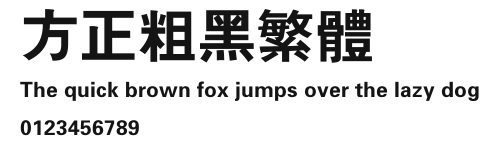
方正粗黑繁体 Preview
• Font Name: 方正粗黑繁体
• Full Font Name: 方正粗黑繁体
方正粗黑繁体.ttf is a modern, elegant sans-serif font designed for ultimate readability and visual harmony. Perfect for branding, headlines, web design, and print materials.